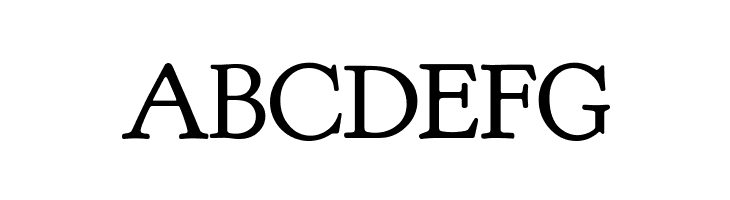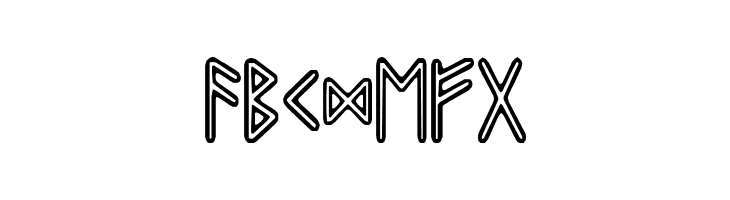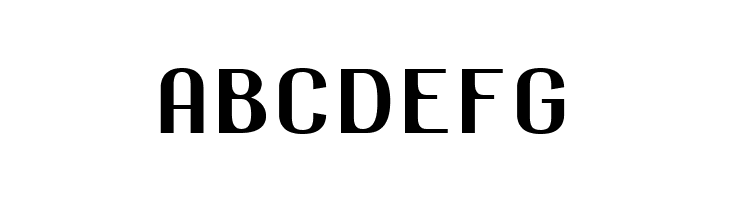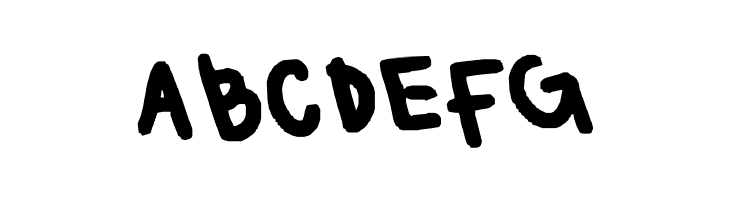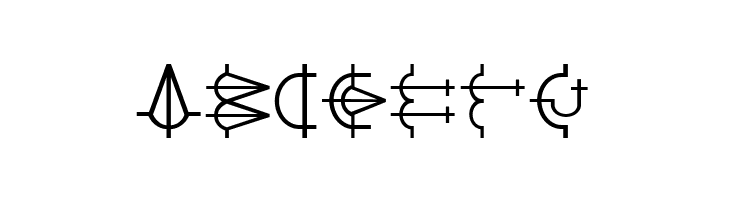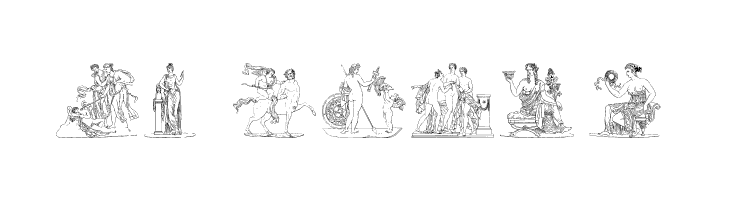
A classic serif font with elegant strokes and balanced proportions.
A classic serif typeface with elegant proportions and moderate contrast.
A decorative and abstract font with intricate geometric shapes and symmetrical patterns.
The image contains decorative illustrations instead of a standard font.
A graffiti-inspired font with elongated, angular characters and an urban aesthetic.
A bold, graffiti-inspired font with angular, dynamic characters.
A runic-inspired font with bold, angular, and geometric shapes.